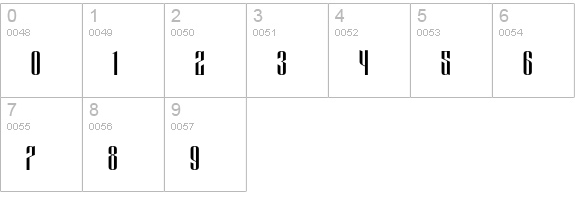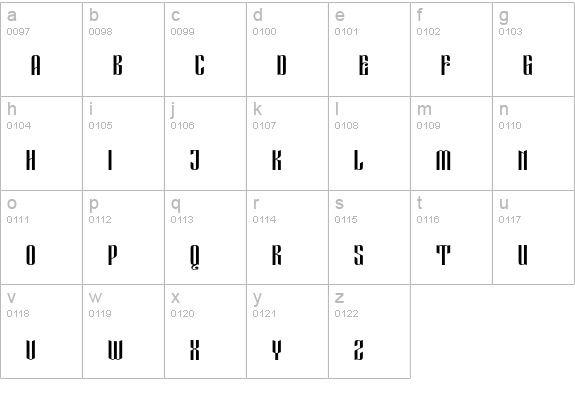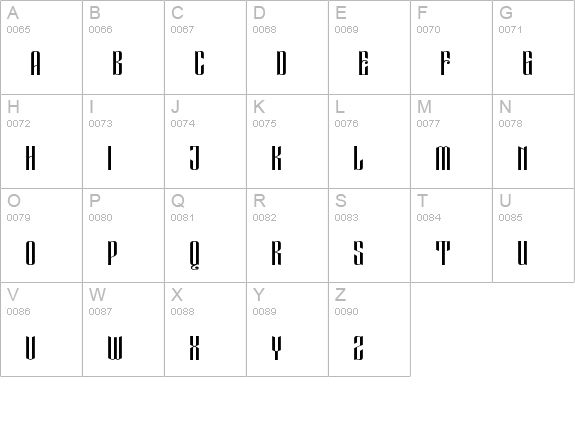
Eveagita Luxury Cap Bold Font Details
Eveagita Luxury Cap Bold is a strong, high-contrast variant in the Eveagita typeface family \xE2\x80\x94 well suited to headlines, attention-grabbing titles, and strong calls-to-action.
Eveagita Luxury Cap Bold font is a stunning display typeface that exudes sophistication and elegance. Its bold and modern design is perfect for making a statement in your projects. The sharp lines and intricate details of this font make it stand out from the crowd, adding a touch of luxury to any design. Best of all, Eveagita Luxury Cap Bold font is available for free download at FontsMarket.com. This means you can elevate your designs without breaking the bank. Whether you're working on branding, packaging, invitations, or any other creative project, this font is sure to make a lasting impression. Download Eveagita Luxury Cap Bold font today and add a touch of sophistication to your designs!